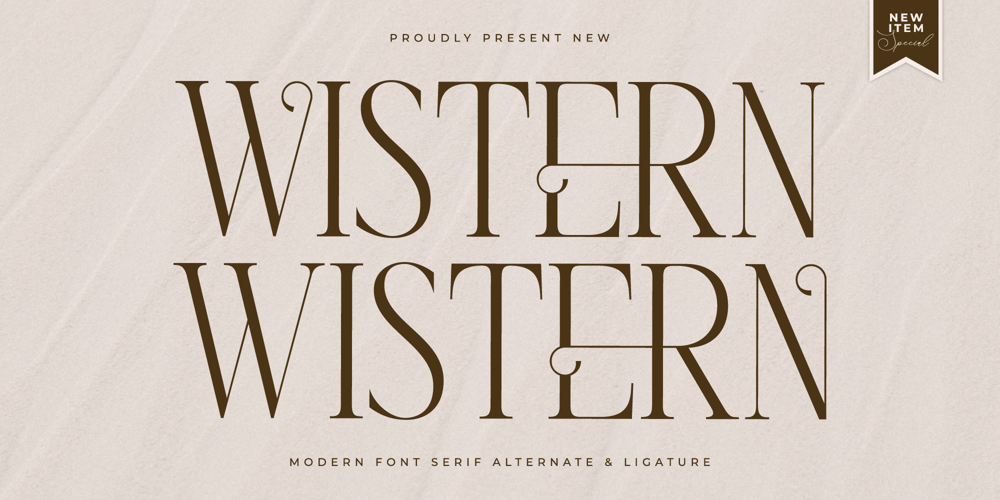
Wistern Font Family was designed by Heru Utama Putra and published by Letterena Studios. Wistern contains 2 styles and family package options. Proudly present Wistern Typeface , created by Storytype,A serif modern and classic typeface that has own unique style & modern look.This typeface is perfect for an elegant & luxury logo, book or movie title design, fashion brand, magazine, clothes, lettering, quotes, and so much more.–Uppercase